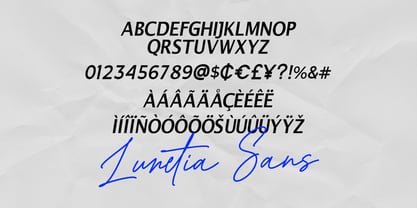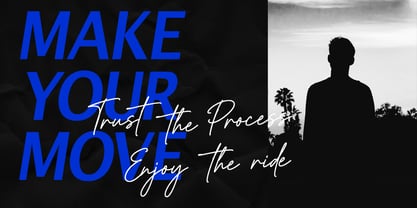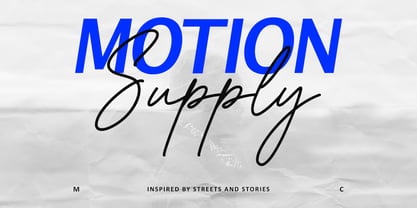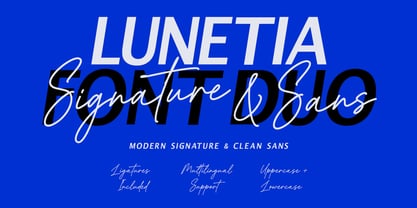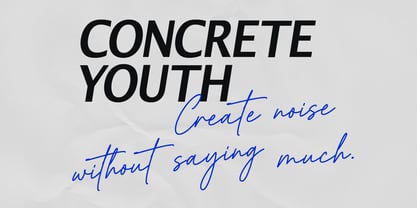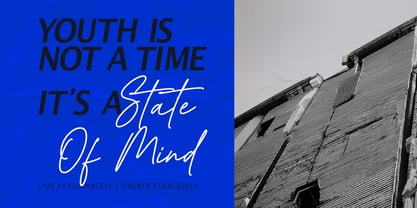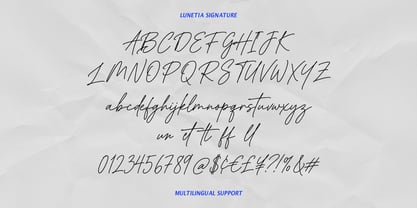
Lunetia Signature
por Maulana Creative
La familia tipográfica Lunetia Signature fue diseñada por Gilang Maulana y publicada por Maulana Creative. Lunetia Signature contiene 2 estilos y opciones de paquete familiar. Más información sobre esta familia
Lunetia Font Duo brings together a sleek, bold sans-serif with an expressive, hand-drawn signature script. Designed for contrast and balance, this typeface pairing seamlessly blends clean geometric structure with fluid, organic lettering. It offers built-in ligatures, uppercase and lowercase characters, and full multilingual support to ensure maximum flexibility across digital and graphic projects.
Ideal for striking brand identities, editorial layouts, poster design, and logo crafting, Lunetia creates an immediate visual impact. The bold sans-serif provides strong readability for headings, while the flowing script adds an authentic human touch to accents, quotes, and signatures. Transform creative concepts into sophisticated visual statements with this versatile typographic combination.
Diseñadores: Gilang Maulana
Fundición: Maulana Creative